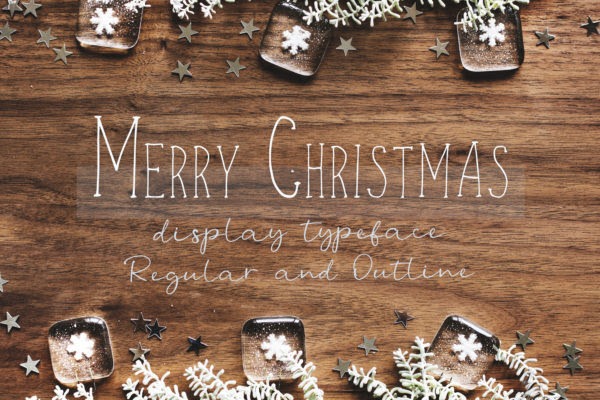
Merry Christmas display font is perfect for design projects, Instagram, invitations, logos, letterpress address, titles, birthday invitations, branding, packaging, magazines, florist shops, social media, restaurant
This freebie also comes with Christmas themed hand-drawn elements/doodles that are perfect for creating greeting cards, photo overlays, scrapbooking, writing letters and just for fun